15 Free Yearbook Fonts to Write the Sweetest Memories
There are no rules to choosing the perfect yearbook font—just make sure it matches the yearbook theme and represents your school spirit. These 15 unique typefaces can help you find a style you like.
School yearbooks are a once-in-a-lifetime opportunity for all font enthusiasts. Yearbook pages often have an eclectic layout: photos, illustrations, large blocks of text paired with short, poignant messages.
This means there’s room for lots of different fonts and lots of fun! Check out these 15 awesome and free fonts for yearbooks to inspire any yearbook team.
Classy sans serif fonts
Sans serif fonts have clean lines and are usually more legible, which is why they’re often used in a professional context. However, their clean look is quite versatile and can make a great choice for any yearbook design.
Some of the most popular sans serif fonts are Arial, Roboto, Open Sans and Proxima Nova. Any of these will probably make a safe font choice, but here are some modern alternatives to consider.
1. Optima
This beautiful font is very elegant and is sure to give your yearbook a sense of tradition and gravitas that teachers and parents will approve of. It resembles the logo font used by the brand Pandora, which holds a similar connection between elegance, luxury and youthfulness.
2. Signika
Signika is a great option for smaller point sizes, as its spaced out letters allow for high readability and clarity. The curved edges give this typeface a gentler look, which can be perfect for filling yearbook pages with sweet, school memories.
3. Bavro
Imagine this modern, futuristic typography on your yearbook cover! It’s sure to win the approval of the entire student body. The downside is that Bavro is only free only in the all-caps version. So if you’re on a budget, you may need to find a complementary font for body copy.
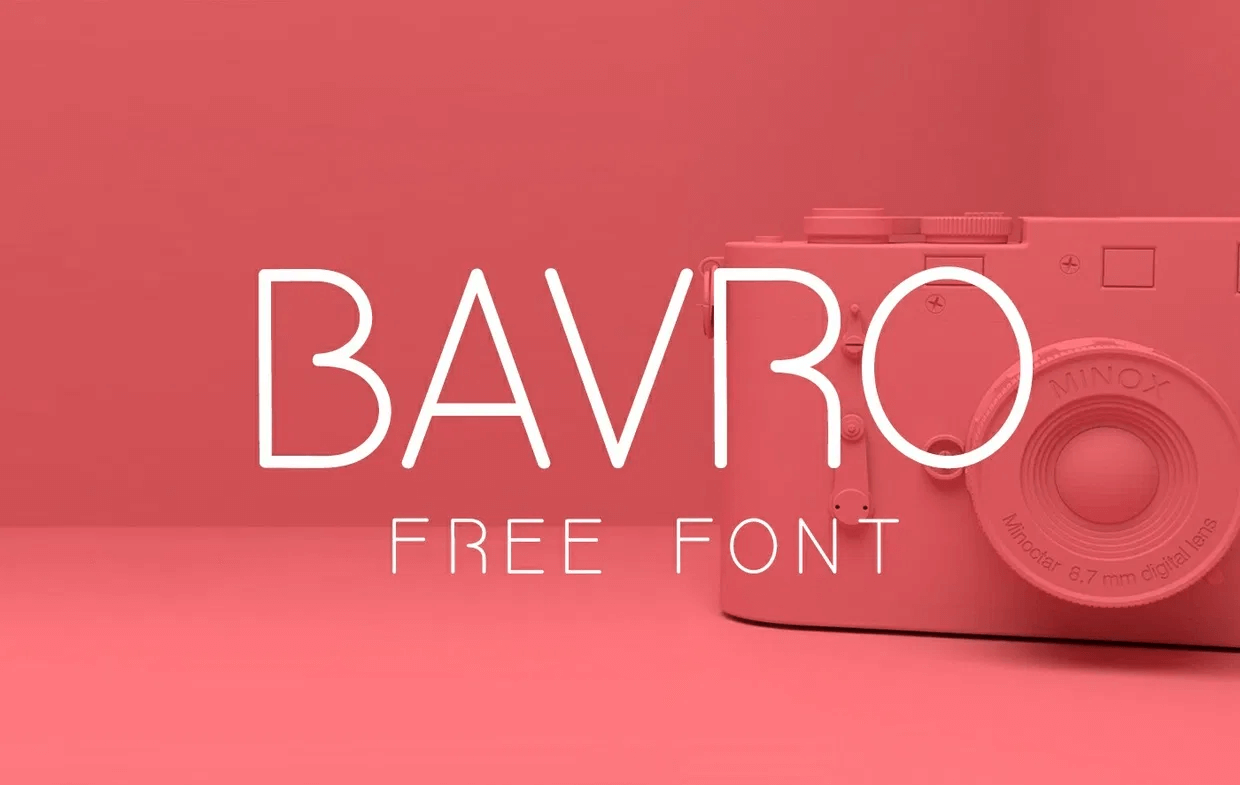
4. Arca Majora
Another all-caps font to give your yearbook cover a sense of drama. Arca Majora is a little less stylized, so it can still be a great choice for some yearbook pages with less text on them, for example, magazine-style pages with lots of pictures and a bold title.
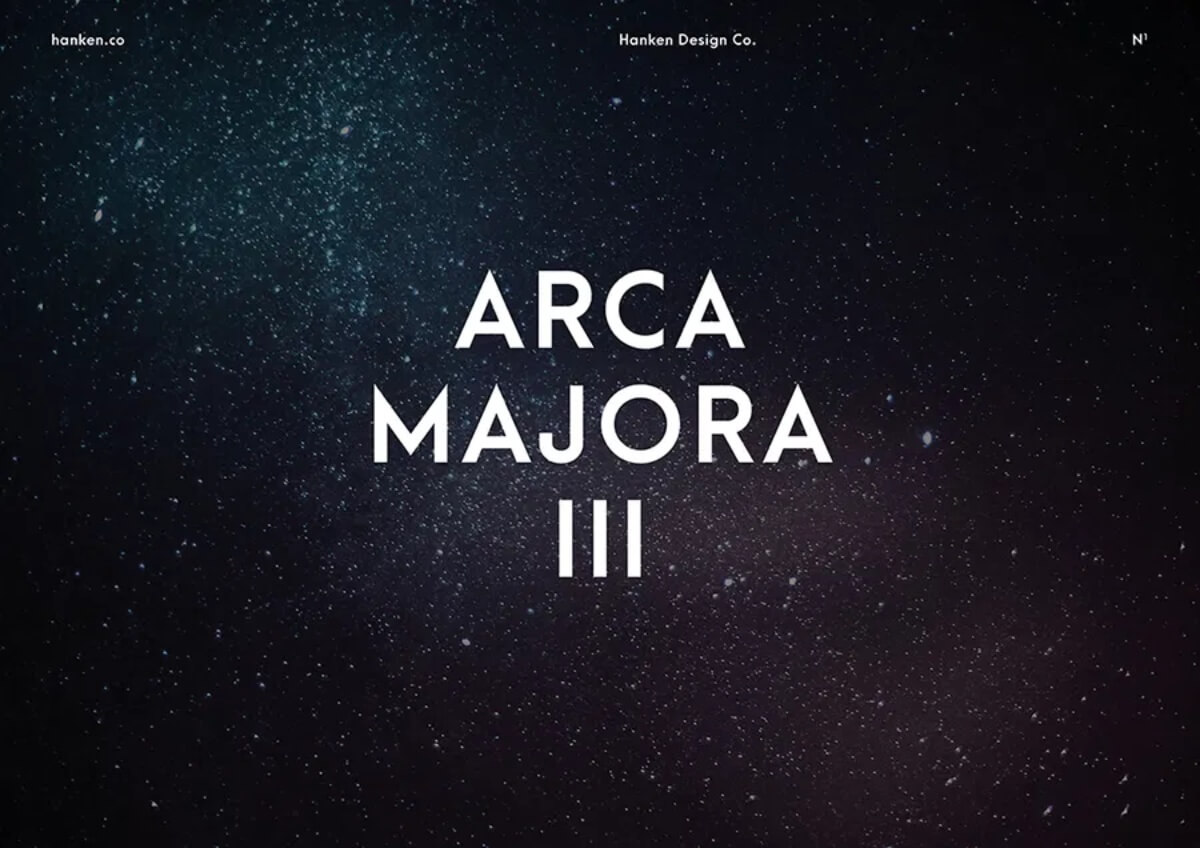
Traditional serifs
The evergreen serif is a font family you probably recognize by fonts like Garamond, Times or Baskerville. The classic typography is something we’re used to seeing in print—and certainly a style that your teachers and headmasters would approve of. This shouldn’t put you off as this font type has a huge number of exciting, modern variations.
Serifs can be beautiful decorative fonts without being overly romantic or frilly.
5. Forum
This free Google font is inspired by classic roman fonts which are often associated with higher education institutions (it’s very similar to the typeface Harvard uses). That’s why it would make a wonderful choice for college and high school yearbooks.
6. Butler
Butler was inspired by the Dala Floda and Bodoni family of fonts. It’s a more modern take on very classic looking fonts, so it’s definitely the right font for your school if you’d like your yearbook design to radiate a sense of tradition and maturity, packaged in a sleek, modern graphic design.
7. Barbaro
Retro style is always a favorite with yearbook design, especially the 1950s and 1960s aesthetic (letterman jackets, cheerleader uniforms, groovy fonts). Barbaro is a great option as it’s got a 1960s flair without being cartoonish.
8. Firefly
Although I’m fairly sure most schools have now switched to whiteboards and markers, chalk fonts are a definitive favorite for any yearbook. Firefly has a unique retro vibe and can compliment any illustrations or doodles you want to include in the final design.
9. Yearbook Solid
As the name suggests, Yearbook Solid font is one of the best options for this purpose. This great free font comes with uppercase letters and numbers - everything you need to design an appealing yearbook cover page!
Melancholic Script Fonts
Script fonts are supposed to mimic human handwriting, so they are definitely going to give any yearbook a more personal look. They’re particularly good for yearbook quotes, as they can make it seem like these were handwritten!
10. Serendipity
Poor readability is an issue with many cursive fonts, but Serendipity is not one of them. This elegant script would make a wonderful choice for subheadings, and even body text.
11. Youth Touch
The name gives it away! Youth Touch is certainly one of the best fonts for yearbooks, ideal for eye-catching headings. If you’re going with a graffiti yearbook theme, it’s a great alternative to graffiti fonts that are often not legible.
12. Hickory Jack
If you want something striking, but still legible, then Hickory Jack is something to consider.If you want something striking, but still legible, then this cool font is something to consider. It’s unique and, again, resembles human handwriting. It can be a terrific option for sub-heads and used in smaller sizes.